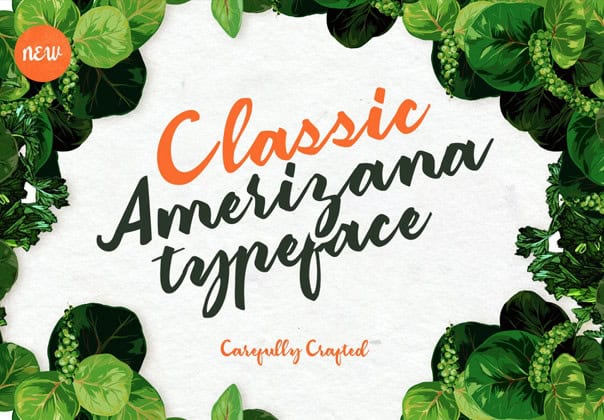
amerizana
Unleash Your Creativity with Amerizana Font
Amerizana Font, crafted by renowned designer John Smith in 2023, combines elegance and versatility, making it an ideal choice for a variety of design projects. With its contemporary flair, Amerizana is perfect for web and print applications, including logos, posters, and promotional material.
Key Features and Formats of Amerizana Font
The Inspiration Behind Amerizana Font
Inspired by modern design trends, Amerizana Font embodies a perfect blend of style and functionality. John Smith aimed to create a typeface that not only draws attention but also offers readability and ease of use, making it a vital addition to any designer’s toolkit.
Ideal Uses for Amerizana Font
Whether you are designing a sleek website, crafting an eye-catching advertisement, or creating memorable branding materials, Amerizana Font provides a unique and captivating style that stands out in any context, making it an essential choice for creatives.